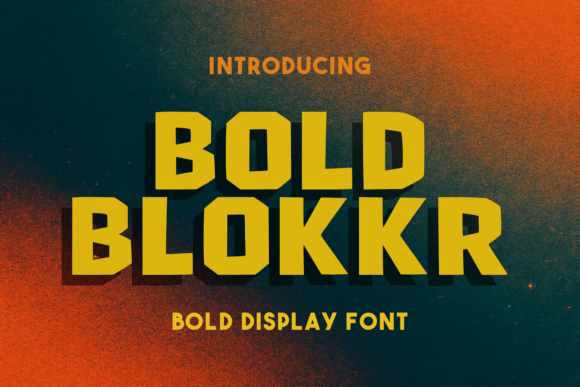
Unleash Your Creativity with Bold Blokkr Font
I’ll never forget the time I was working on a project for a client who needed a bold, eye-catching font for their streetwear brand. I scoured the internet for hours, but nothing seemed quite right. That was until I stumbled upon the Bold Blokkr Font, also known as the Knockout Font. Its powerful display typeface and chunky, modern design immediately caught my attention, and I knew I had found the perfect fit. In this article, I’ll share my experience with this incredible font and provide a comprehensive guide on how to use it to take your designs to the next level.
A Powerful Display Typeface: What I Love About Bold Blokkr Font
The Bold Blokkr Font is a game-changer for designers, crafters, and creative hobbyists looking to make a lasting impression. Here are some of the things I love about this amazing font:
- ✨ Bold and Heavy Block Letters: The font features bold, heavy block letters that are ideal for high-impact headlines, posters, or streetwear t-shirts.
- ✅ Versatile and Stunning: Its chunky and modern design combines with strong typography to create a font that is as versatile as it is stunning.
- 🔥 Compelling Comic-Inspired Detailing: The font’s comic-inspired detailing makes it perfect for gym and fitness apparel, gaming logos, esports branding, or even YouTube thumbnails.
- 💥 Confident, Masculine, and Aggressive Characteristics: The font’s confident, masculine, and aggressive characteristics will bring a fresh and loud surge of style into your designs.
Honest Review: Small Quirks and Limitations
While the Bold Blokkr Font is an incredible design tool, there are a few small quirks and limitations to be aware of:
- 🤔 Limited Use in Body Text: Due to its bold and chunky design, the font may not be suitable for body text or long-form content.
- ⚠️ Requires Careful Kerning: As with any bold font, kerning can be a challenge. Be sure to adjust the kerning to ensure optimal readability.
Designer Inspiration: The Story Behind Bold Blokkr Font
The Bold Blokkr Font was designed with the urban style and streetwear culture in mind. Its creator, a young and talented designer, was inspired by the bold and chunky typography often seen in graffiti and street art. With a passion for bold and eye-catching designs, the designer aimed to create a font that would help brands and designers stand out in a crowded market.
| What is the Bold Blokkr Font best used for? | The Bold Blokkr Font is best used for high-impact headlines, posters, streetwear t-shirts, gym and fitness apparel, gaming logos, esports branding, and eye-catching logos. |
| Is the Bold Blokkr Font available in different weights and styles? | Yes, the Bold Blokkr Font comes in different weights and styles, including bold, regular, and italic. Be sure to check the font package for available styles. |